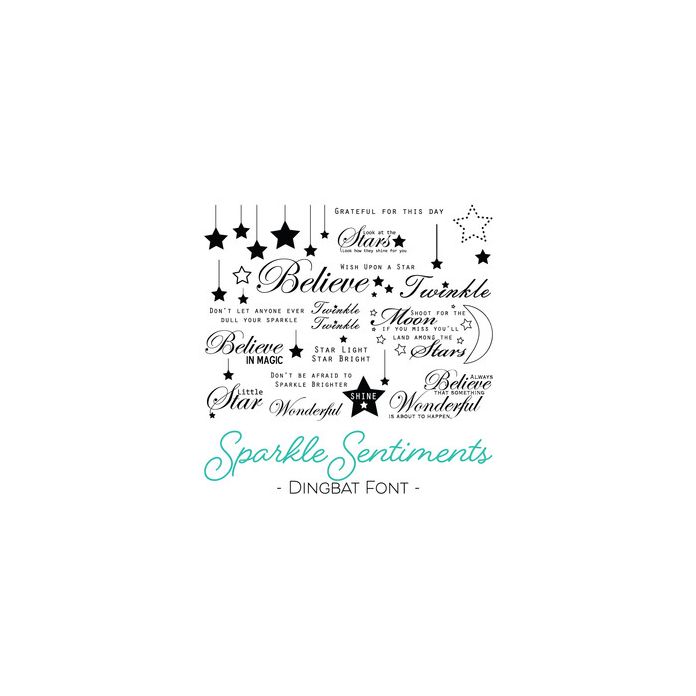
Sparkle Sentiments Quote Dingbat Font. Includes 26 sentiments and coordinating embellishments, perfect for card making sentiments, inserts, scrapbooking, gifts and more!. All are assigned to an upper case letter starting with 'A' or can be accessed via glyphs. For more design ideas, coordinating designs & products and inspiration, please visit my blog http://www.sarahhurleyblog.com